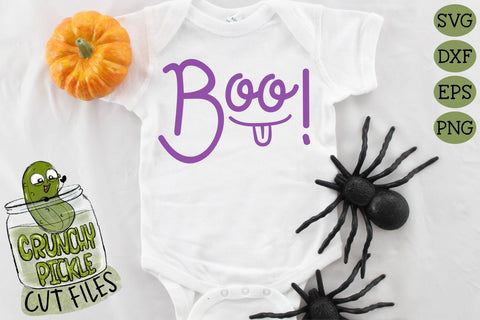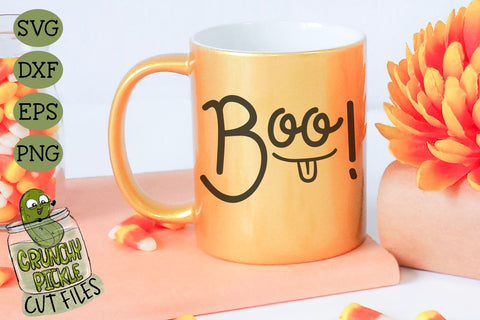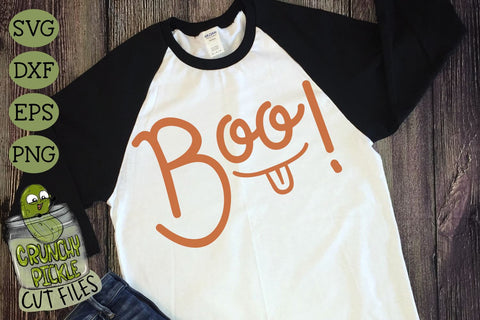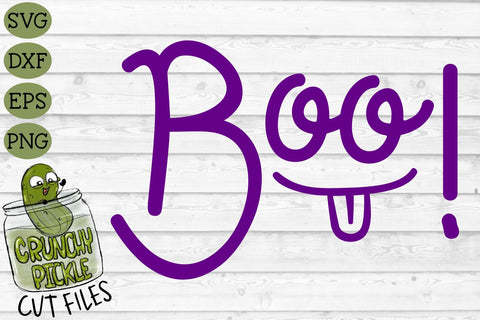
Boo Halloween SVG Cut File
Boo!  SVG cutting file - cute & silly - not just for Halloween!  Would look cute on anything with vinyl or use for scrapbooking and card making.  Very easy to cut file.